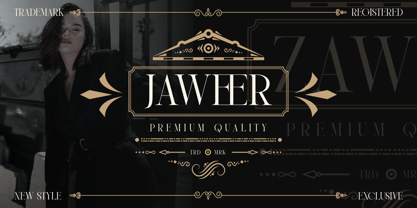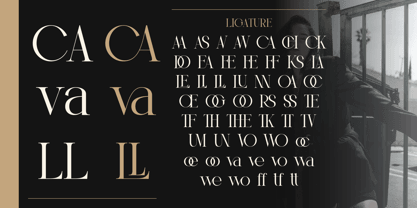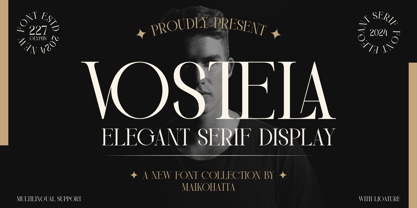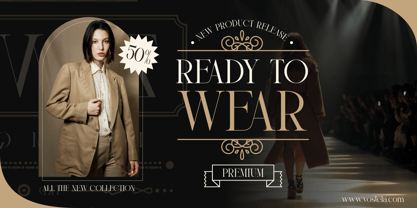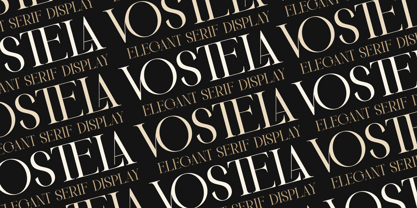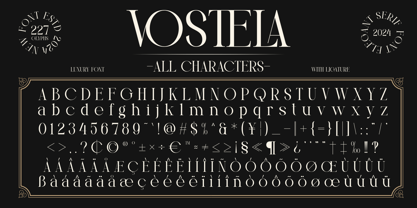
Vostela
La familia tipográfica Vostela fue diseñada por Gilang Ternadho y publicada por Maikohatta. Vostela contiene 1 estilos. Más información sobre esta familia
Introducing our new product Vostela - Elegant Serif Display
This font is a type of letter that has special characteristics that create the impression of luxury, elegance and firmness. This font involves a series of design elements such as balanced thin and thick lines, gentle curves, and elegant and clean serifs. The sharp corners and fine details of each character create a highly aesthetic impression and exude an air of elegance.